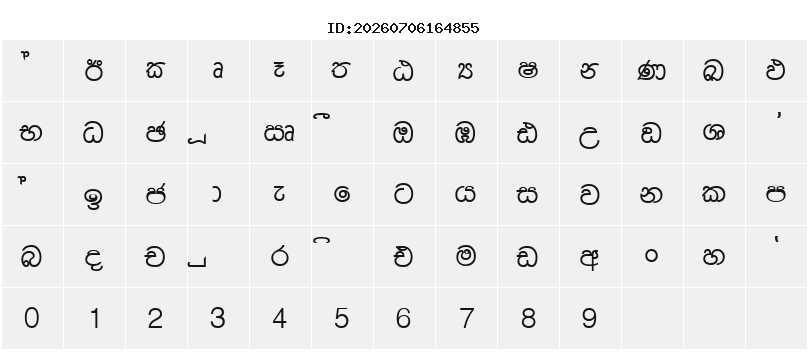
Dhananjayaweb Preview
About Dhananjayaweb.ttf
Dhananjayaweb.ttf is a modern, elegant sans-serif font designed for ultimate readability and visual harmony. Perfect for branding, headlines, web design, and print materials.